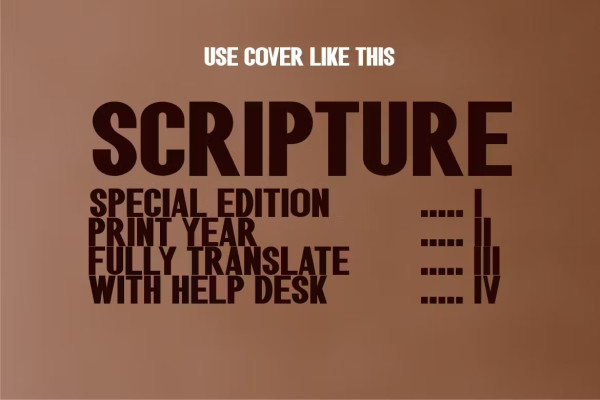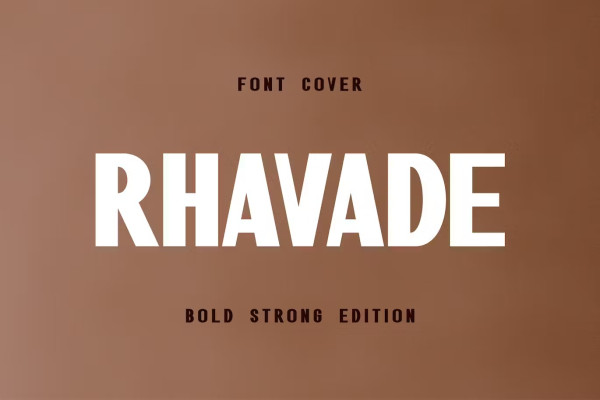
Rhavade Font
Rhavade Font, a font devoted to a Bible cover or title in a printed medium. The rise of blasphemy against the burning of Scripture in other parts of the world, makes us lose our sense of so-called “TOLERANCE”. Let’s unite world peace, by being a good figure in religion.